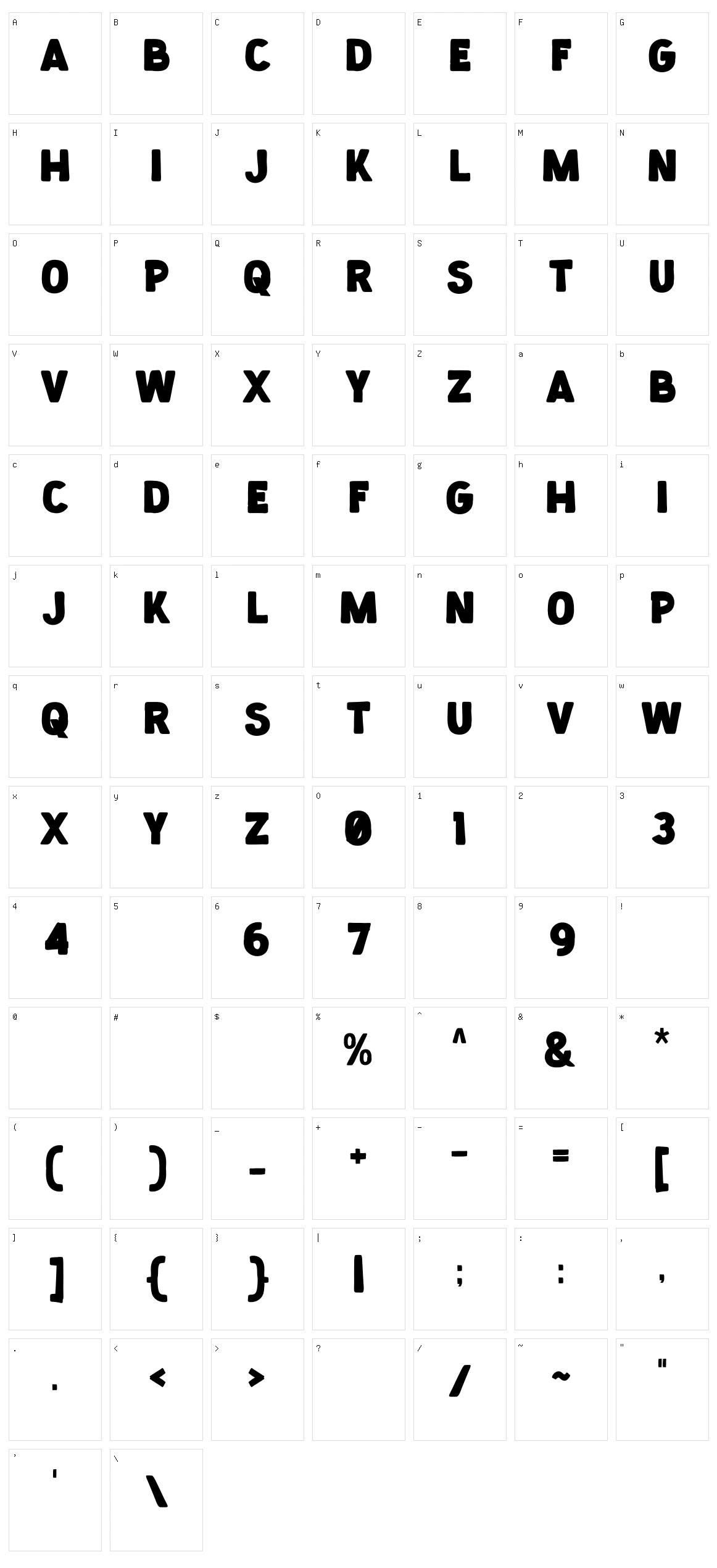
The free font Blackbuster is carefully designed by Gassstype, showcasing a thoughtful balance of creativity and usability and falls under the Cartoon font style. When you download the ZIP file, it contains only 464.42 KB of font files, making it lightweight and quick to download. Please review the license details below to understand permitted usage and distribution rights. If license information is not available, we recommend using this font for personal projects only or contacting the author directly for commercial usage permissions.